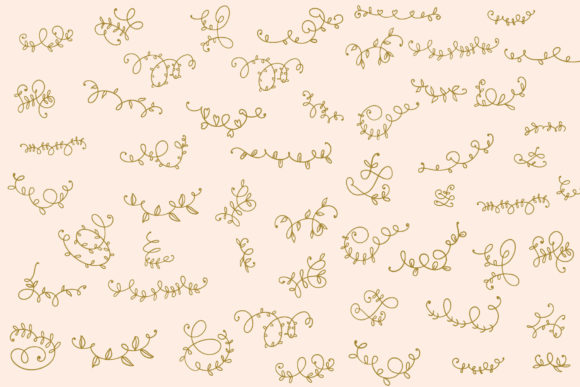
Handrawn Ornaments Font
“Handrawn Ornaments” is a delicate and useful dingbats font that adds a touch of elegance and charm to your design projects. Whether you’re a crafter, digital designer, presenter, or greeting card maker, this font is perfect for enhancing your creations with beautiful hand-drawn ornaments.
With “Handrawn Ornaments,” you have access to a variety of decorative elements, such as flourishes, borders, frames, and embellishments. These ornaments are hand-drawn, giving your designs a unique and artistic look. Whether you’re creating crafts, digital designs, presentations, or greeting cards, this font offers endless possibilities for adding intricate details and enhancing the visual appeal of your work.
When using “Handrawn Ornaments,” you can easily incorporate the ornaments into your projects. Simply select the desired ornament and place it strategically within your design. Whether you want to add a decorative flourish to a corner, frame your content with an elegant border, or embellish your composition with intricate details, this font provides the elements you need to achieve a polished and professional look.
One of the great advantages of “Handrawn Ornaments” is its versatility. You can use it for a wide range of projects, from scrapbooking and card-making to digital designs and presentations. The delicate and intricate nature of the ornaments adds a touch of sophistication to your crafts and lends a handcrafted feel to your digital designs. In presentations, the ornaments can be used to highlight important information or create visually appealing slides. Additionally, when making greeting cards, you can use the ornaments to create unique and personalized designs.
To make the most of “Handrawn Ornaments,” experiment with different combinations and placements of the elements. Mix and match flourishes, borders, frames, and embellishments to create custom designs that suit your aesthetic preferences and project requirements. You can also adjust the size, color, and opacity of the ornaments to further customize their appearance.
Overall, “Handrawn Ornaments” is a delicate and useful dingbats font that allows you to add a touch of elegance and intricacy to your design projects. Whether you’re creating crafts, digital designs, presentations, or greeting cards, this font provides a wide range of hand-drawn ornaments to enhance your creations. With its versatility and customization options, “Handrawn Ornaments” is the perfect addition to your font library, enabling you to effortlessly elevate your designs and make them truly unique.